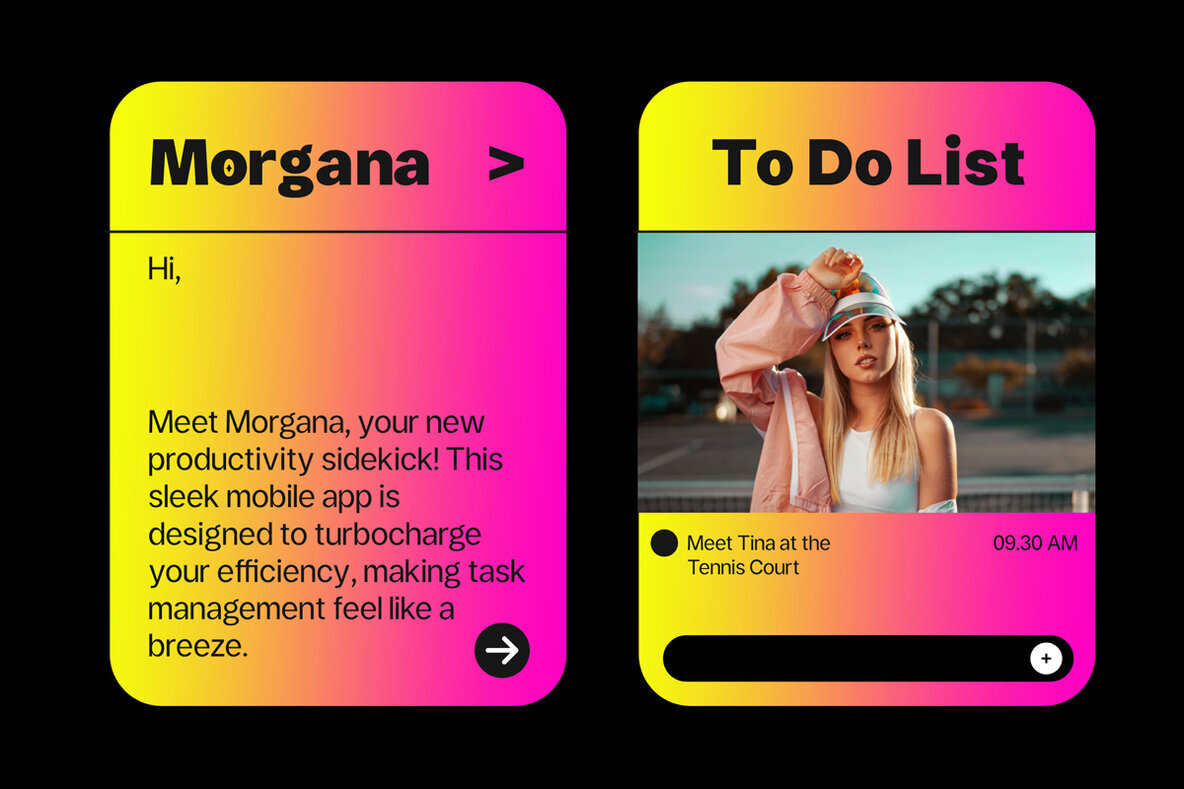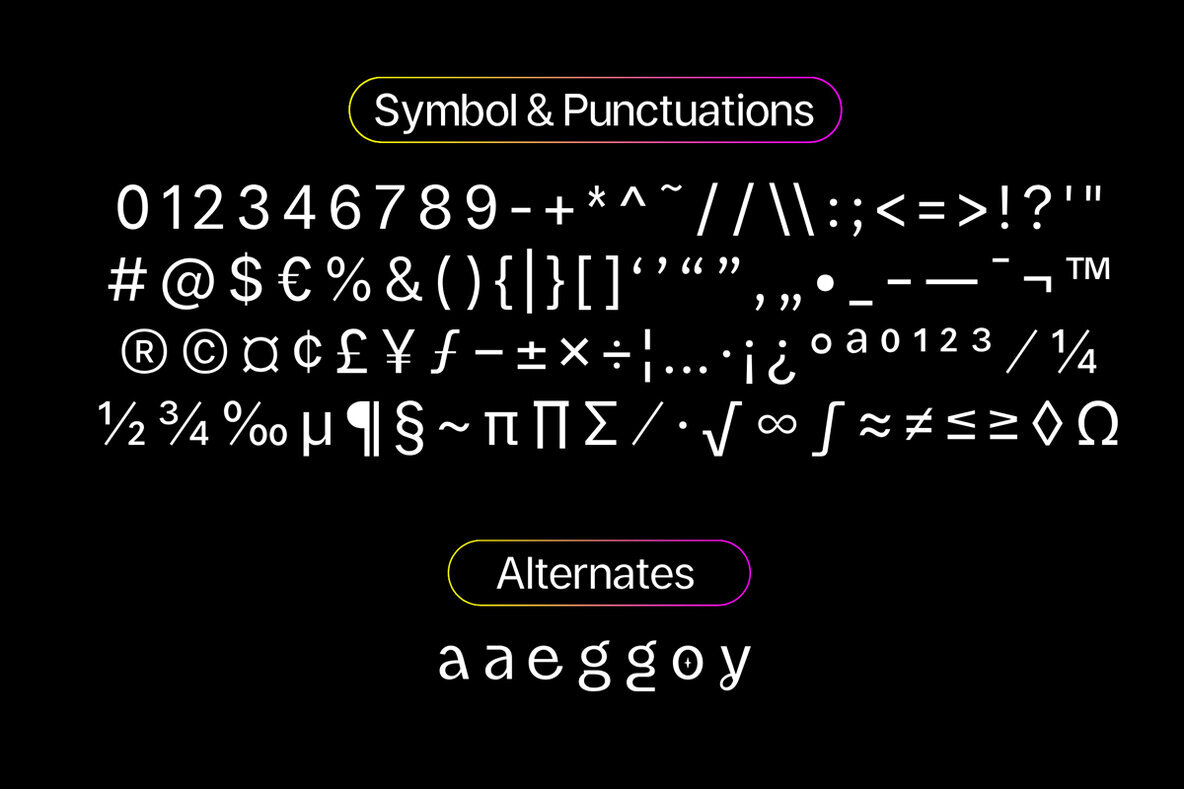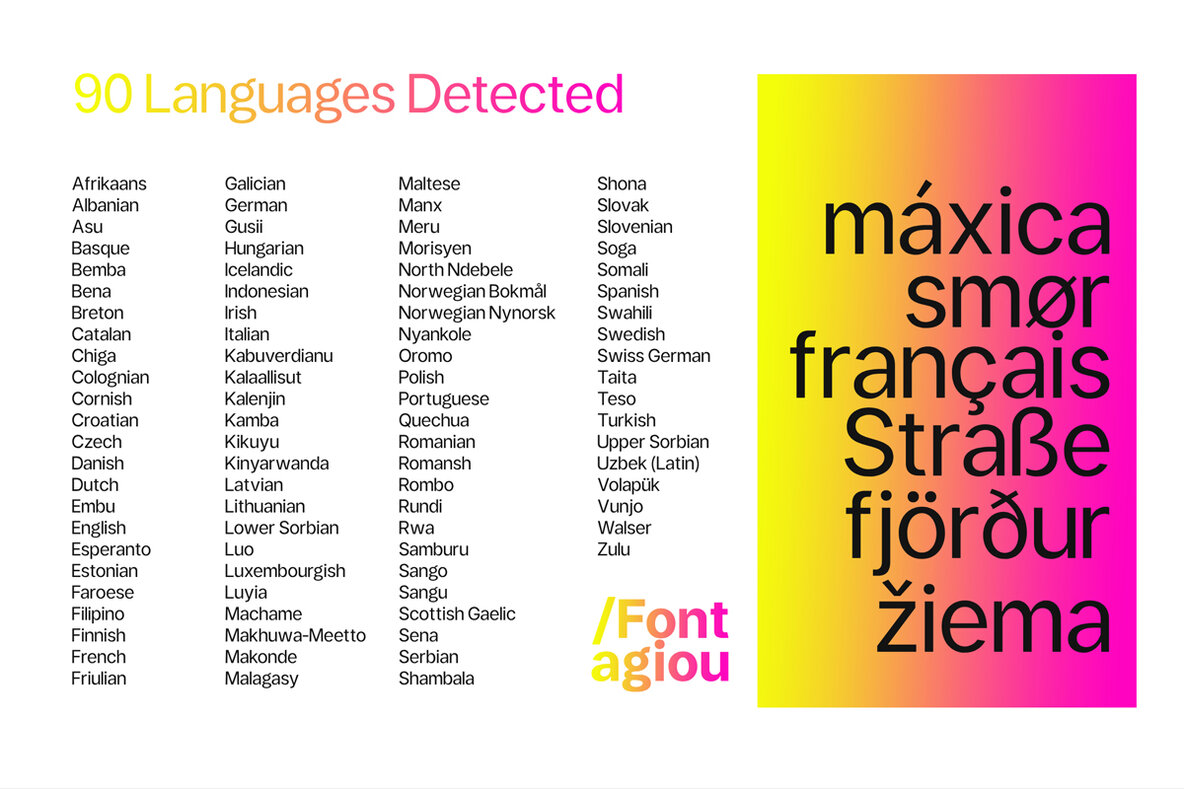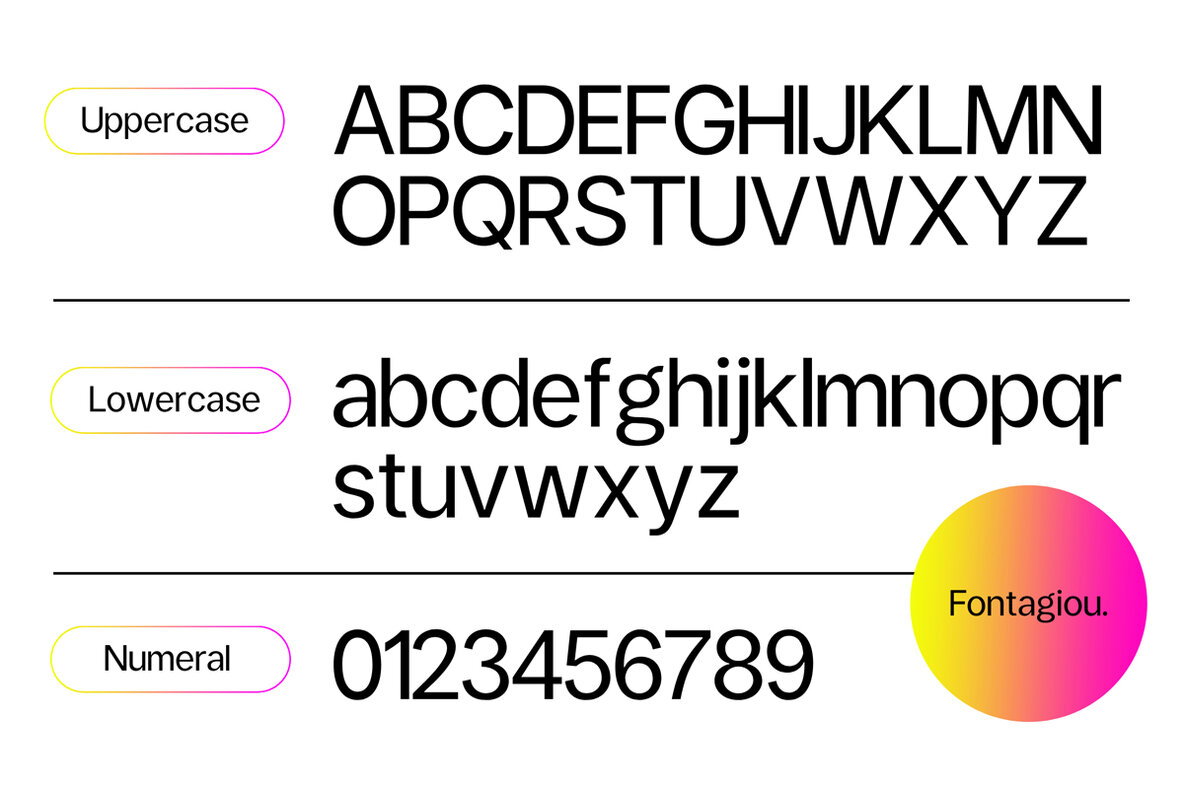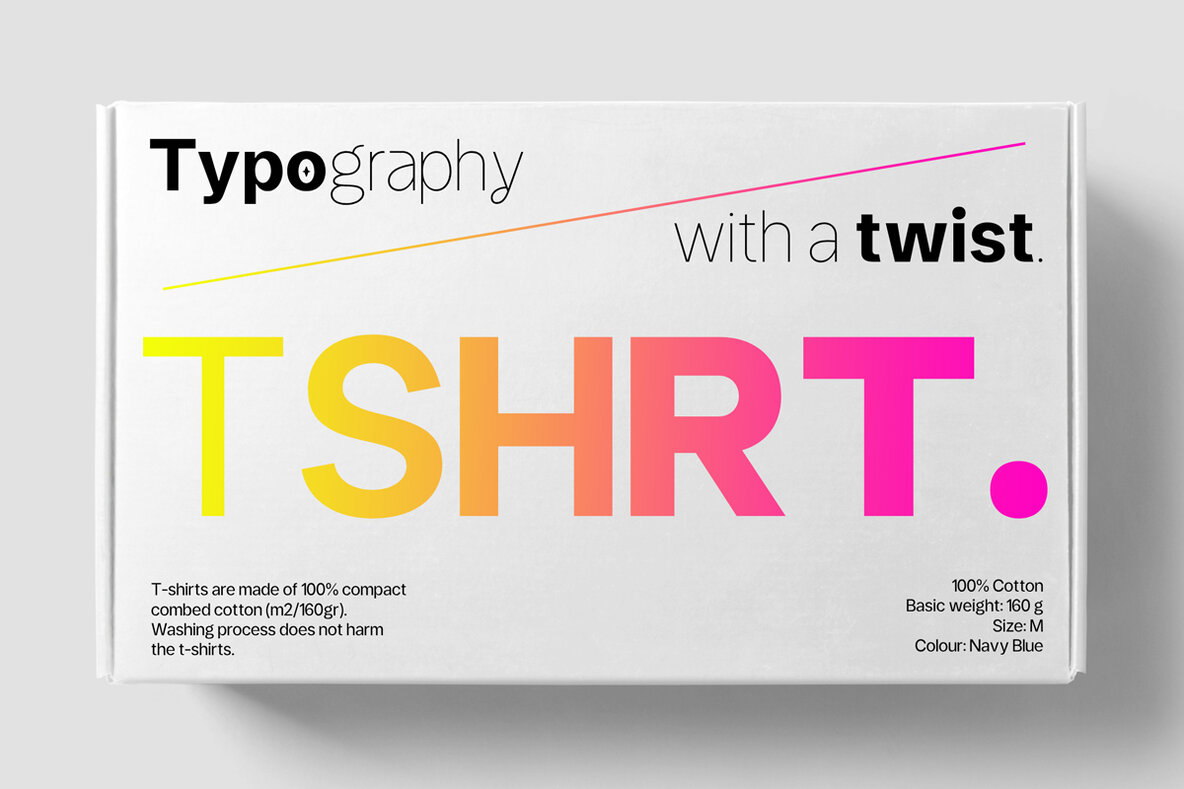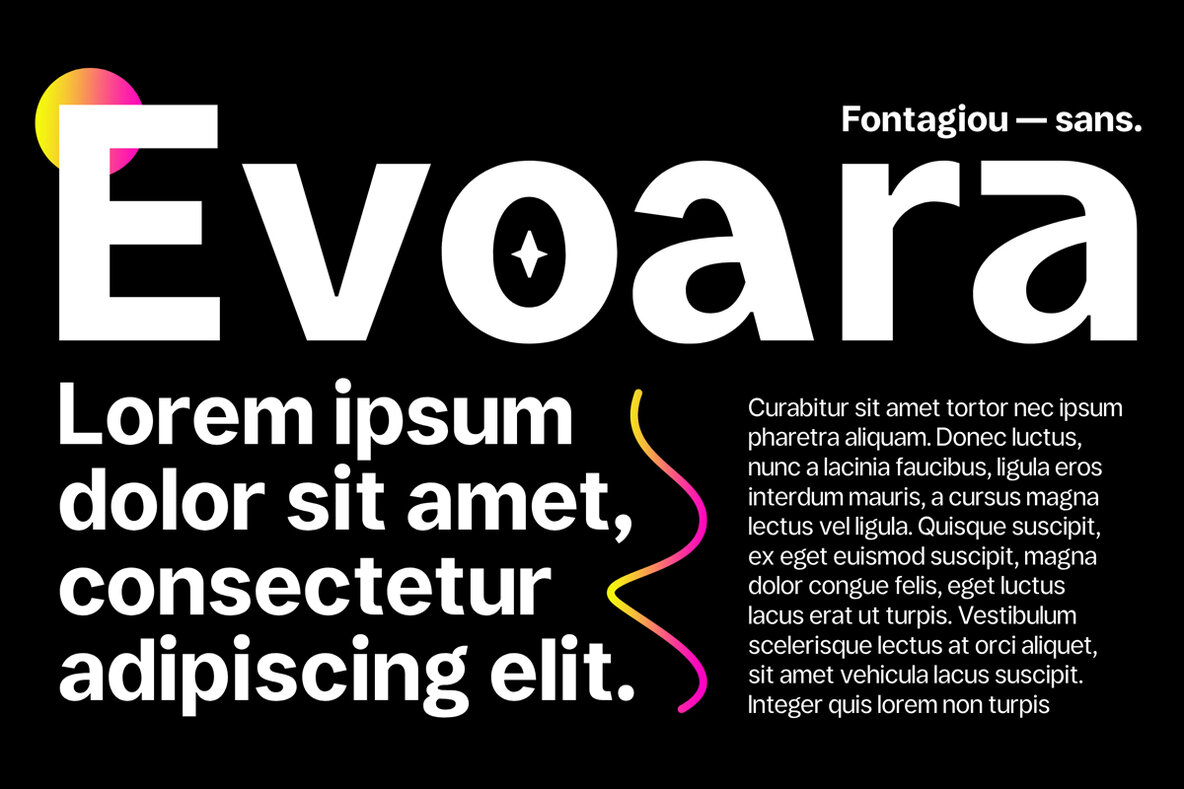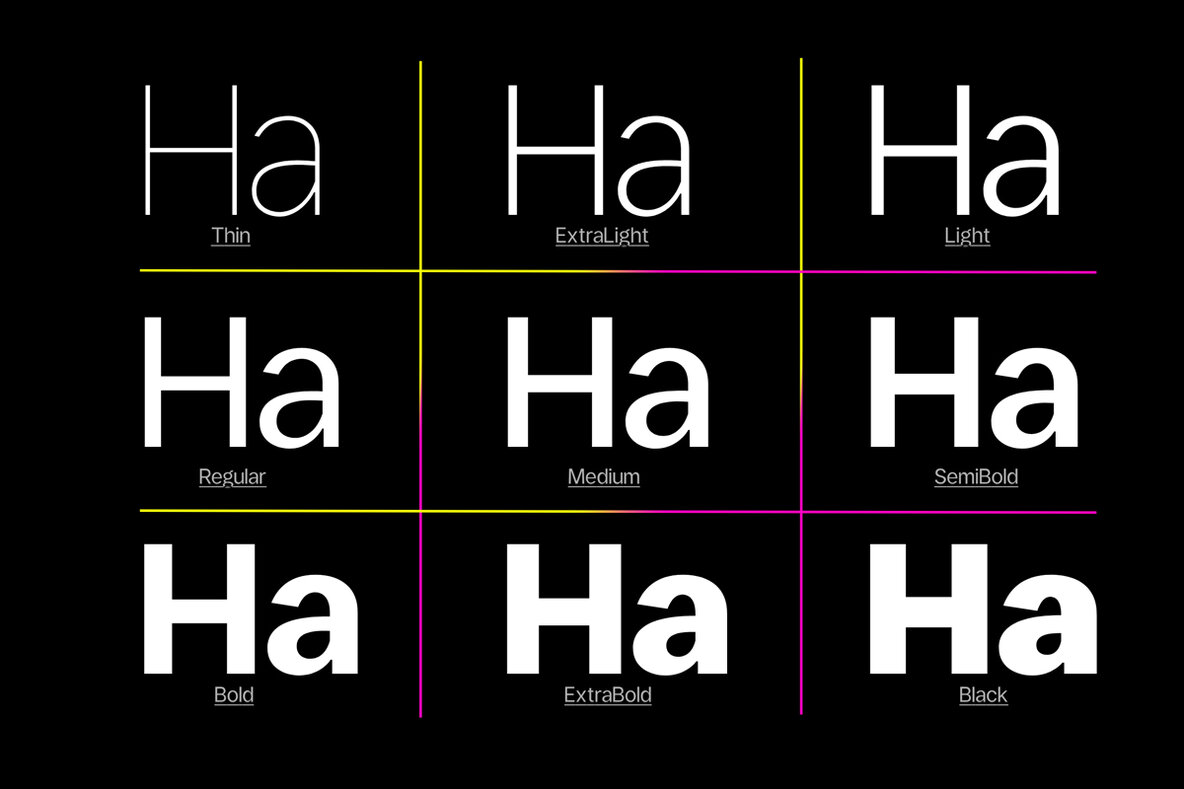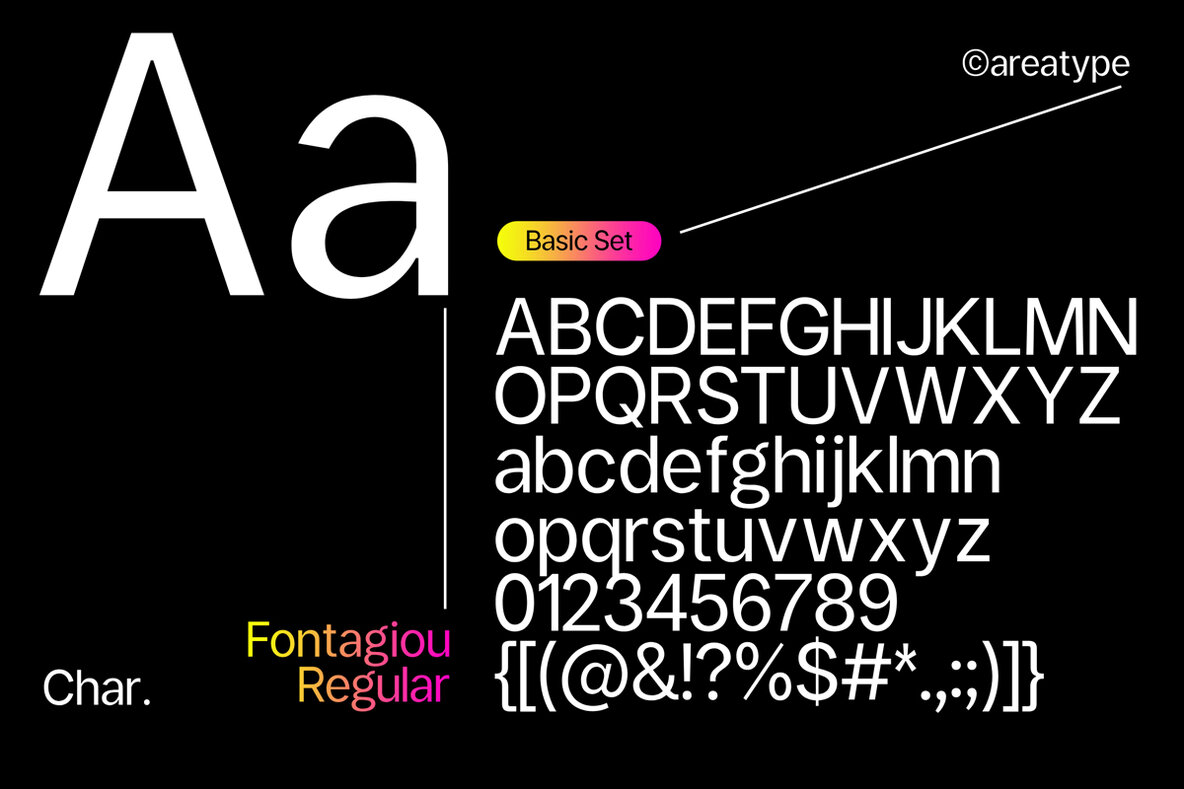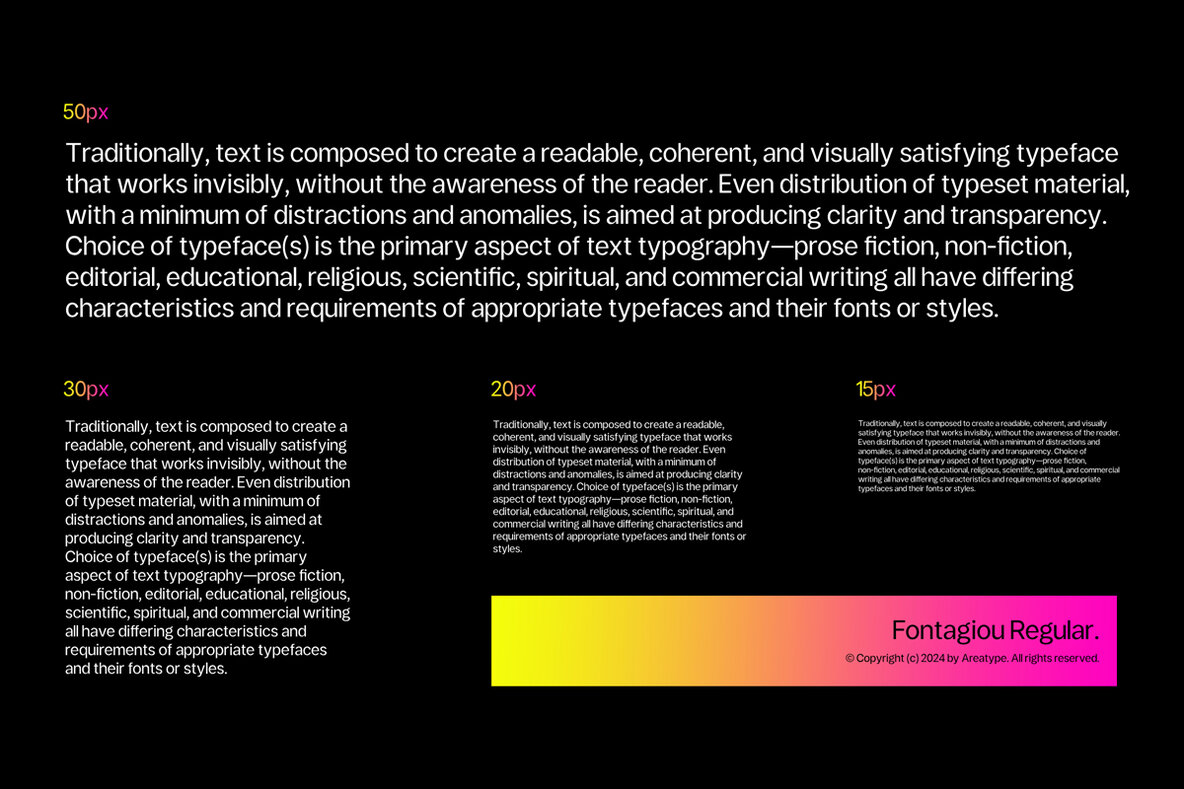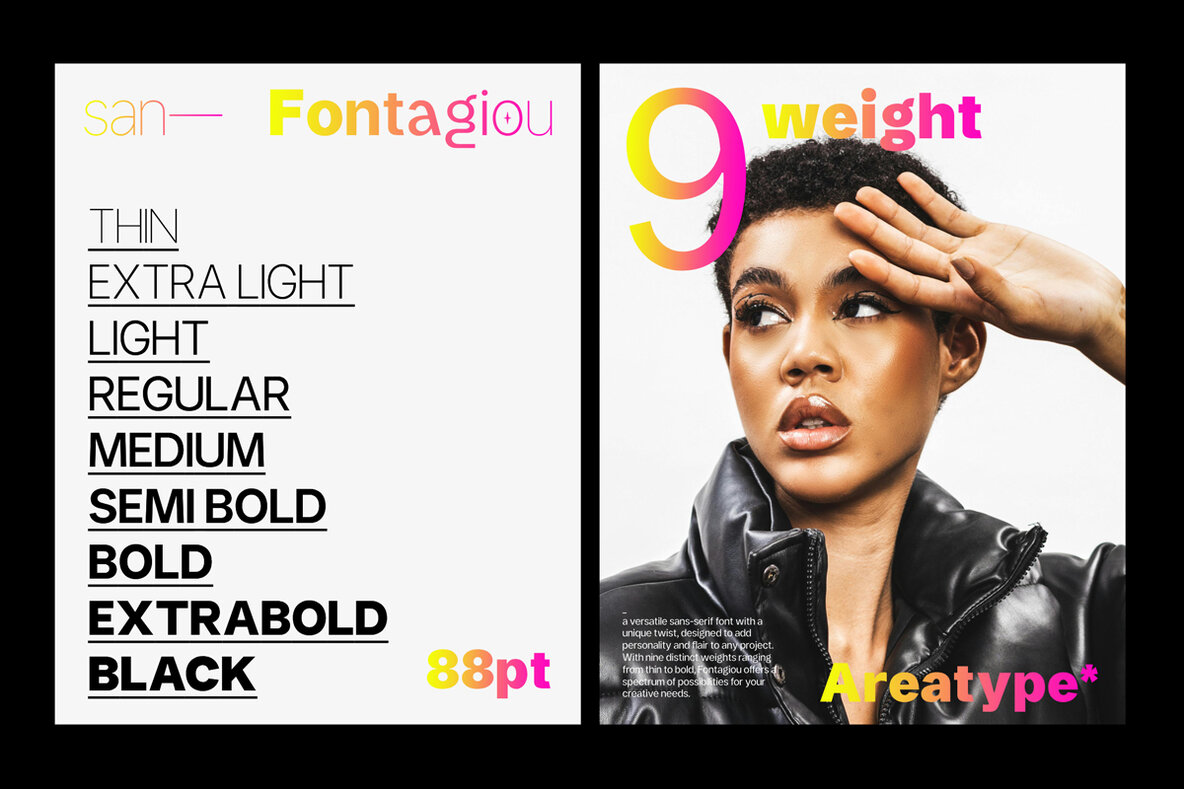
Fontagiou
Fontagiou is a graceful sans serif typeface with smooth curved lines that also offers a modern and flexible impression. Includes 9 Fonts, Ranging from light to black styles. OpenType features allow for the application of typography such as ligatures and multi-language support.